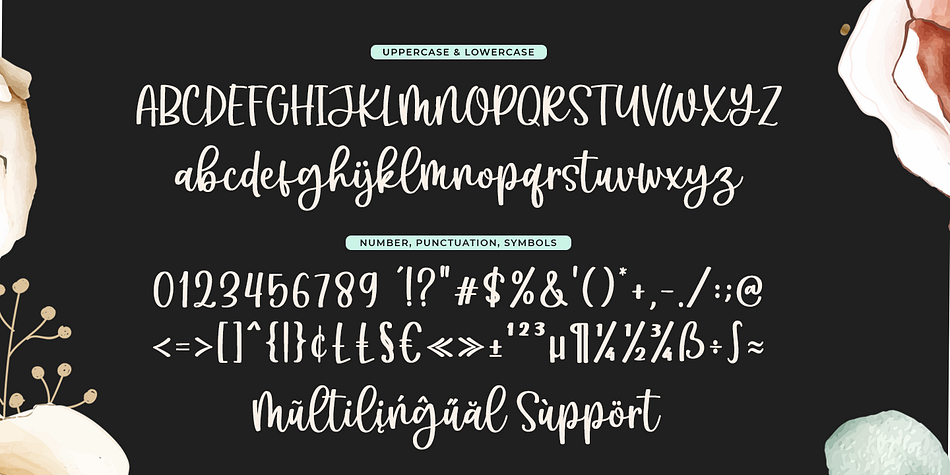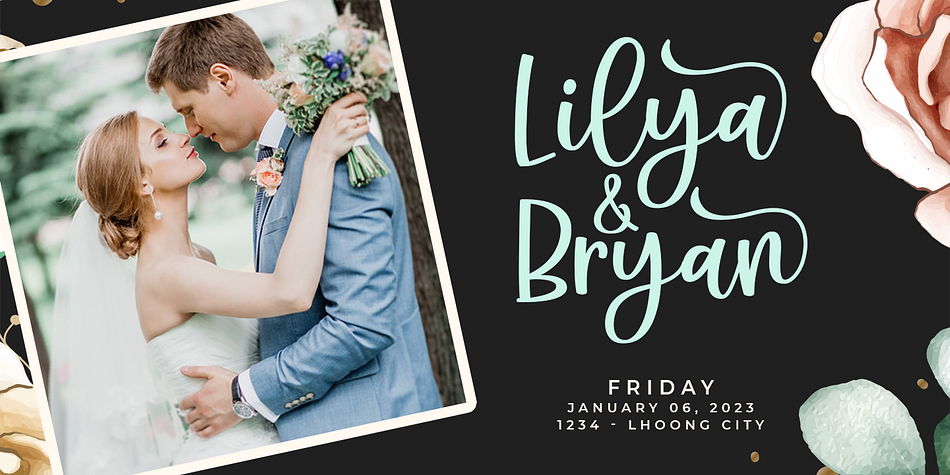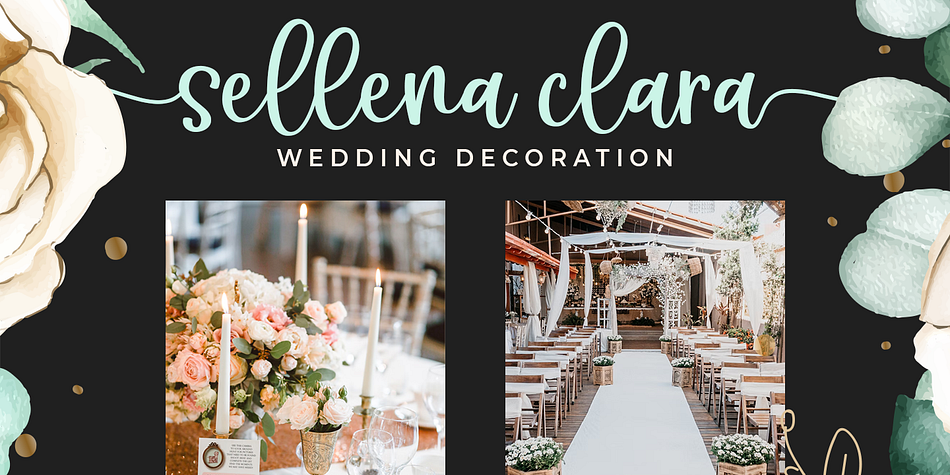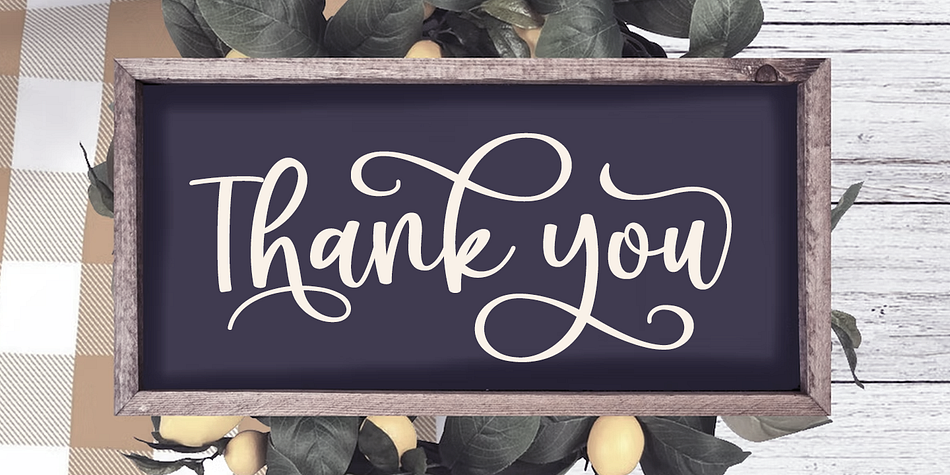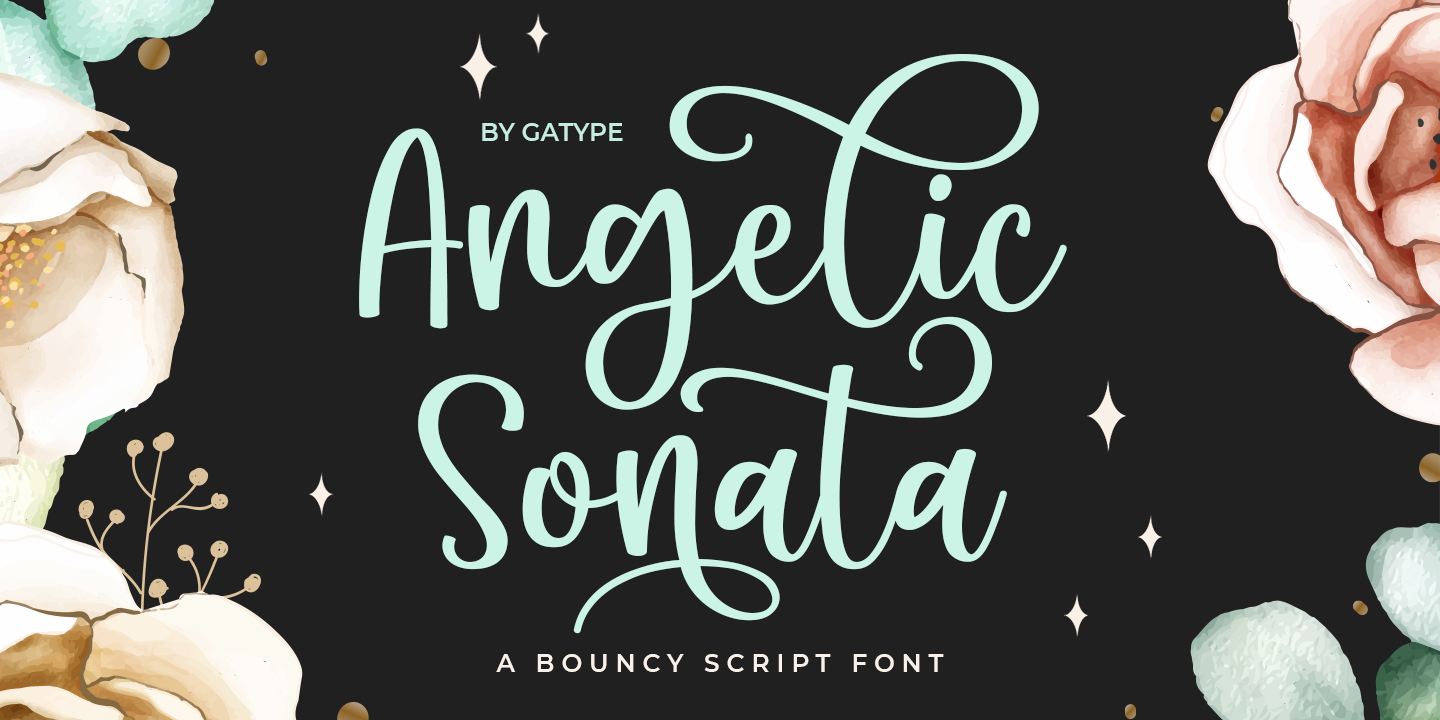
Angelic Sonata
Angelic Sonata is a modern calligraphy font family published by Gatype.
Angelic Sonata, a modern handwritten font loaded with binders for that handwritten look. Angelic Sonata can be used for wedding invitations and wedding calligraphy, feminine or organic logos, small business branding, packaging and much more!
Angelic Sonata features an alternative OpenType style, International binding and support for most Western Languages included. To enable the OpenType Stylistic alternative, you need a program that supports OpenType features such as Adobe Illustrator CS, Adobe Indesign & CorelDraw X6-X7, Microsoft Word 2010 or later.